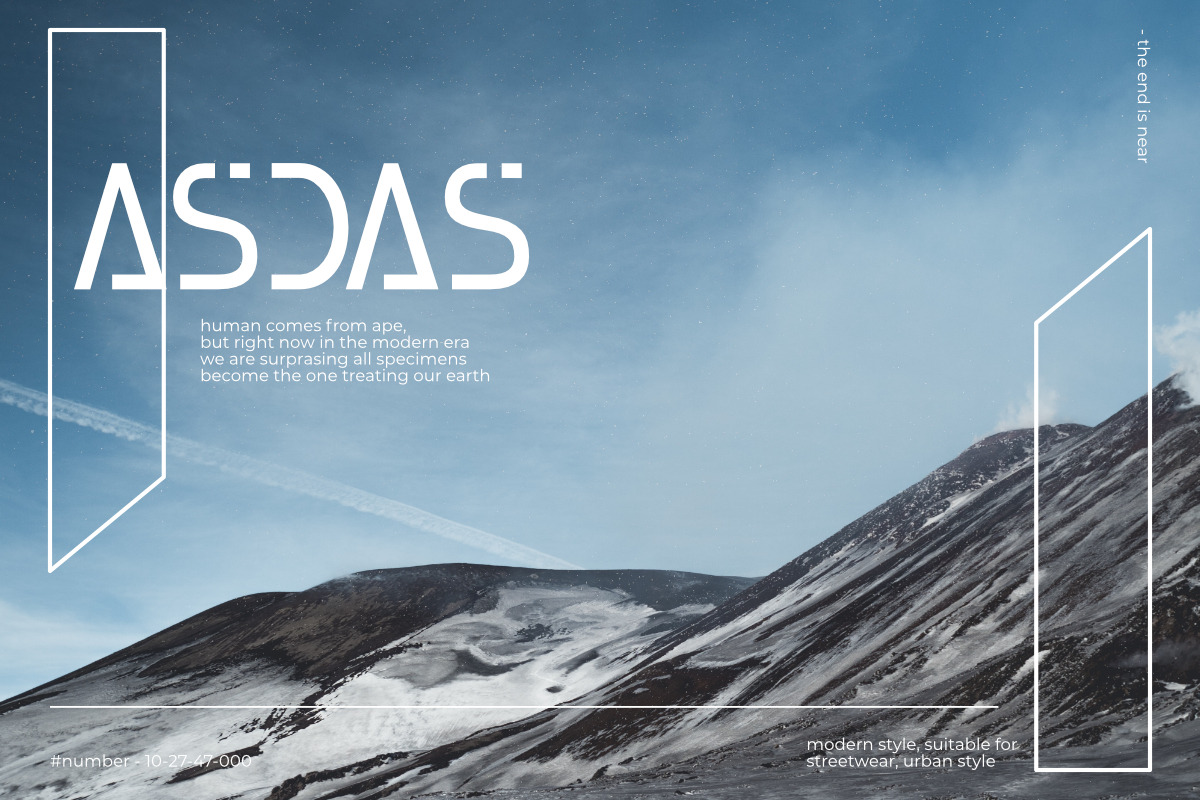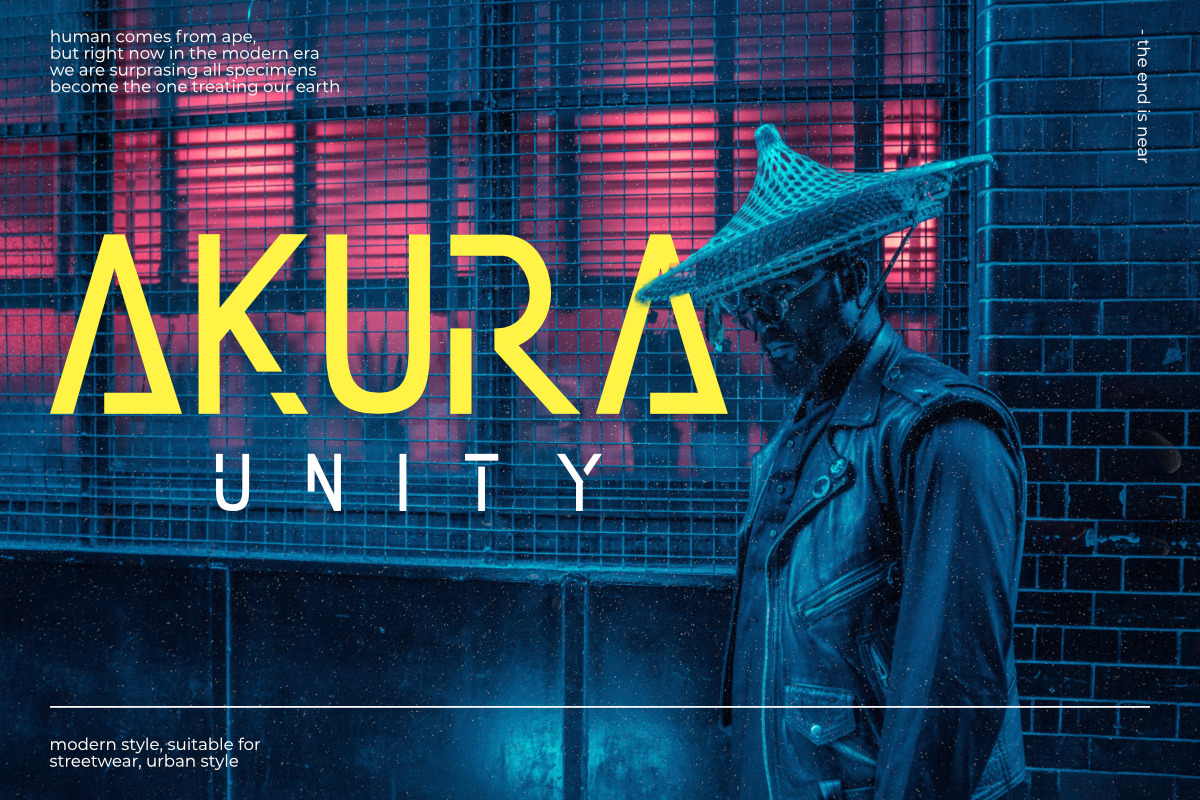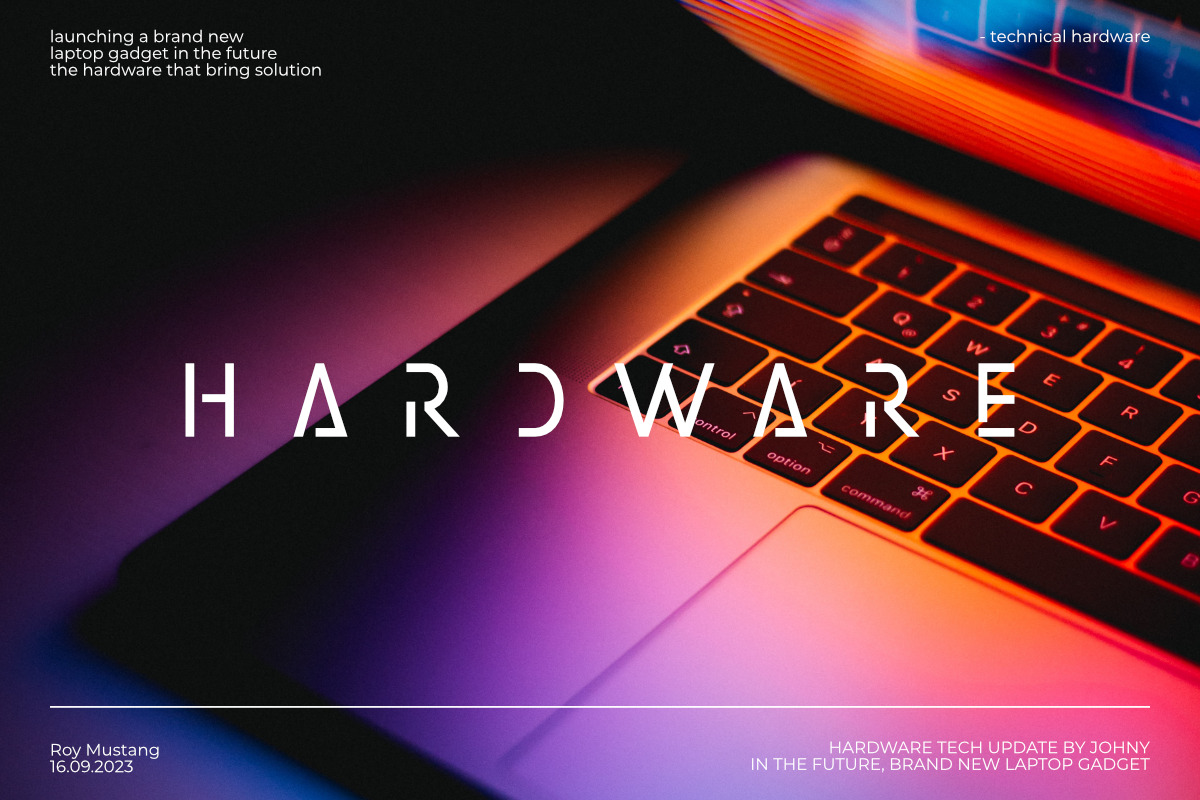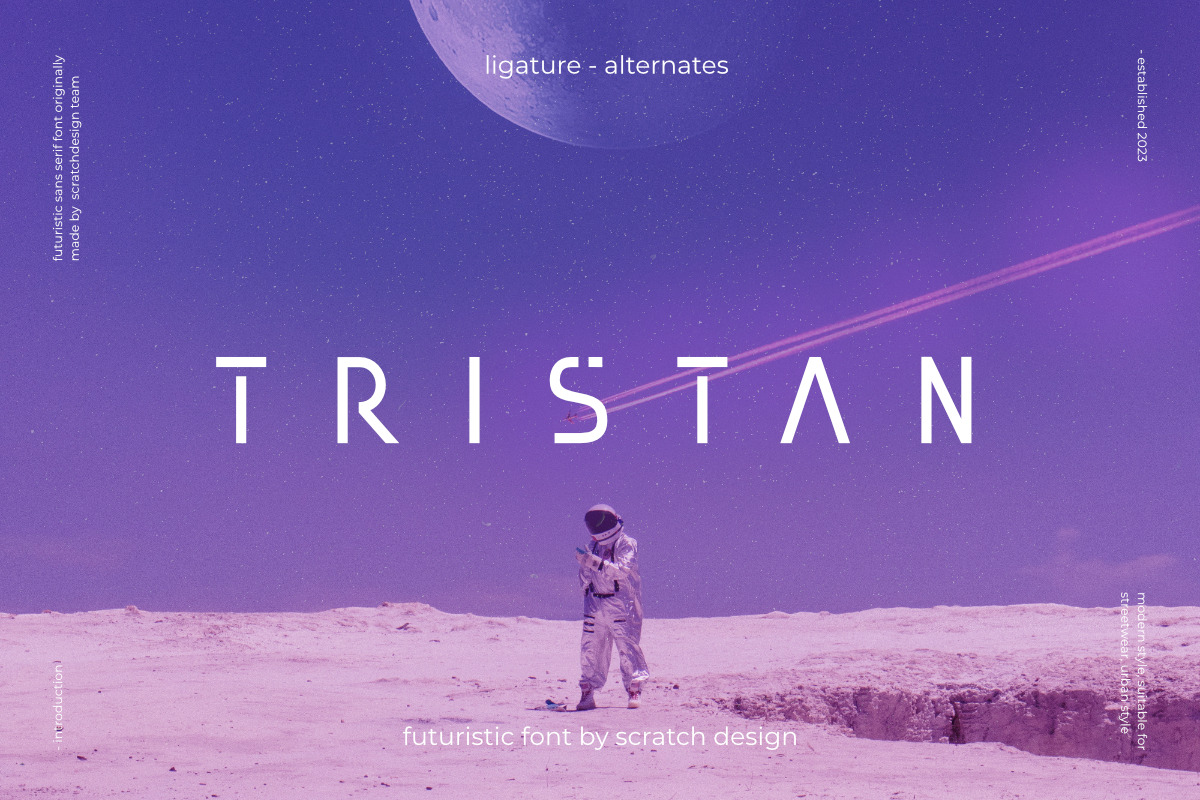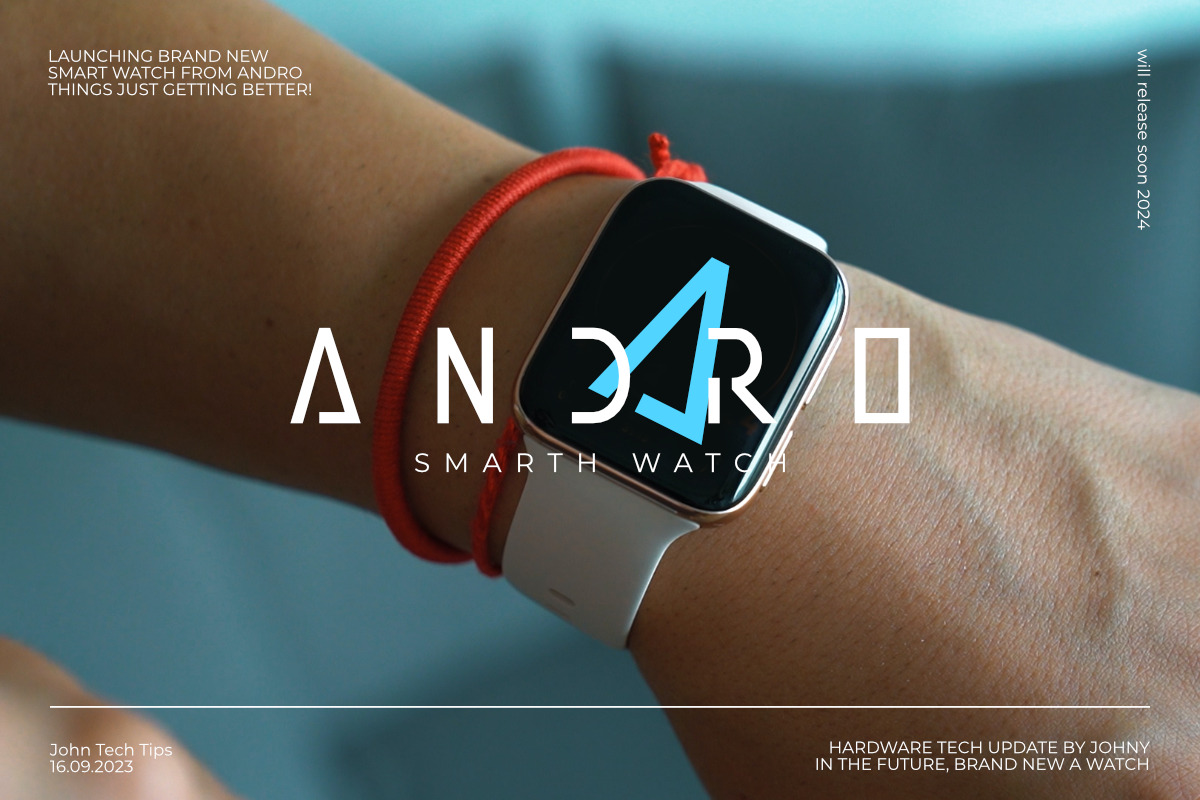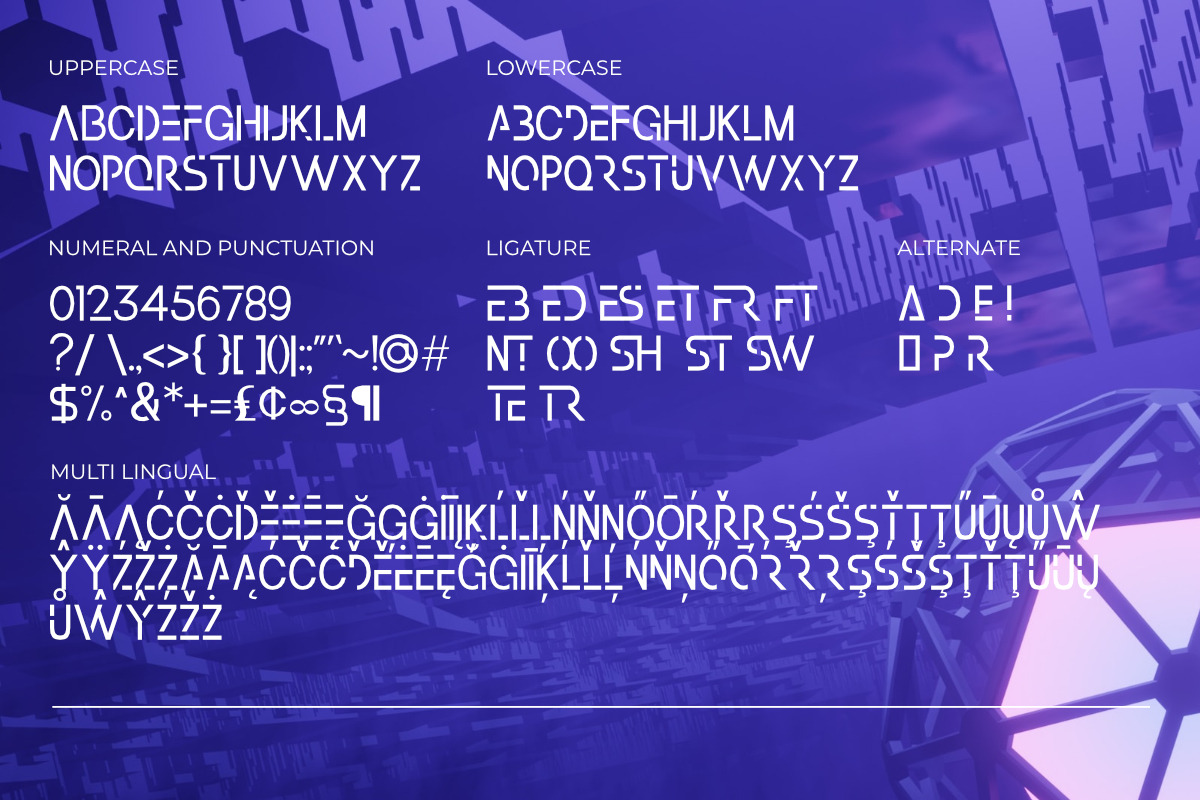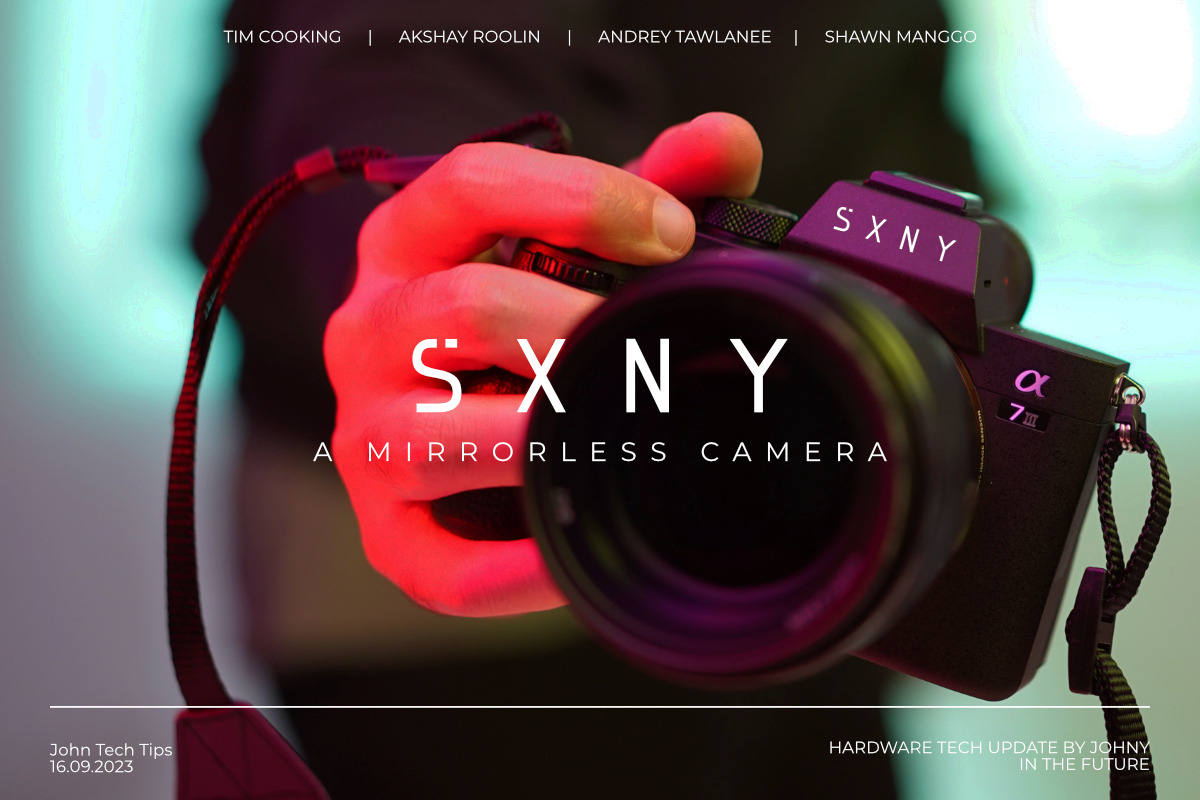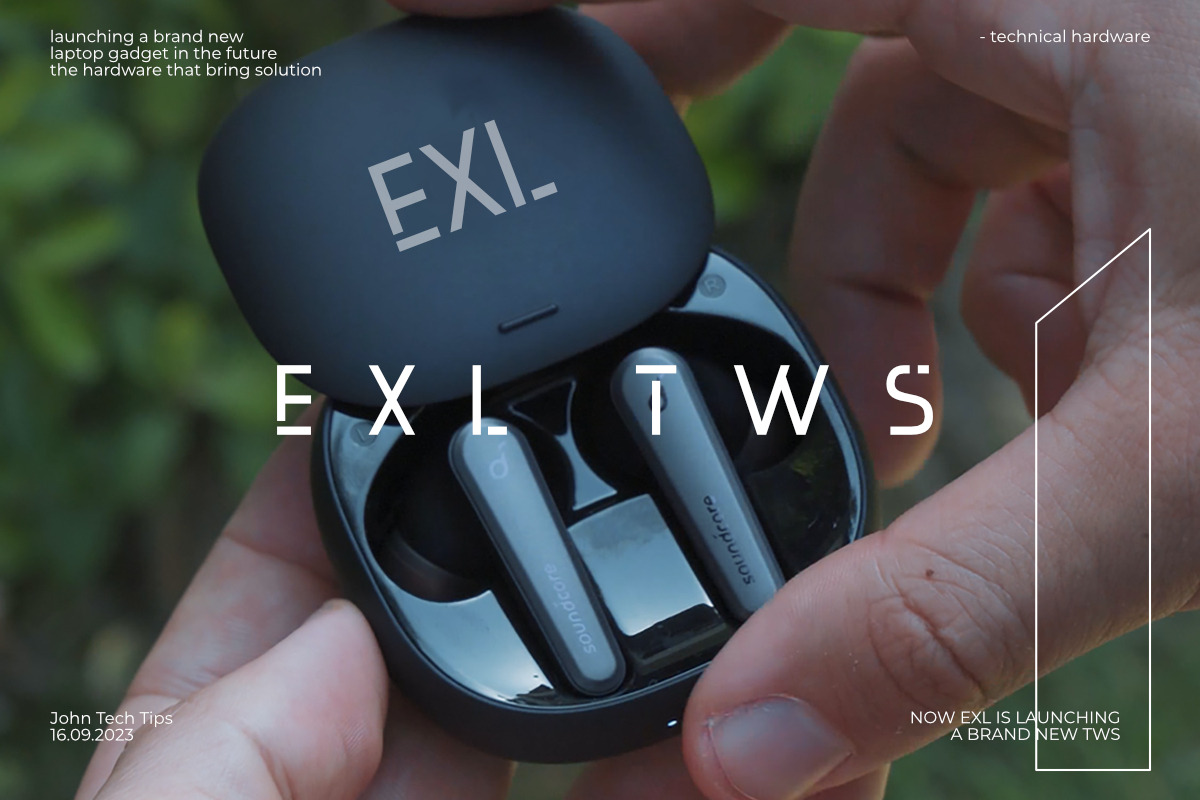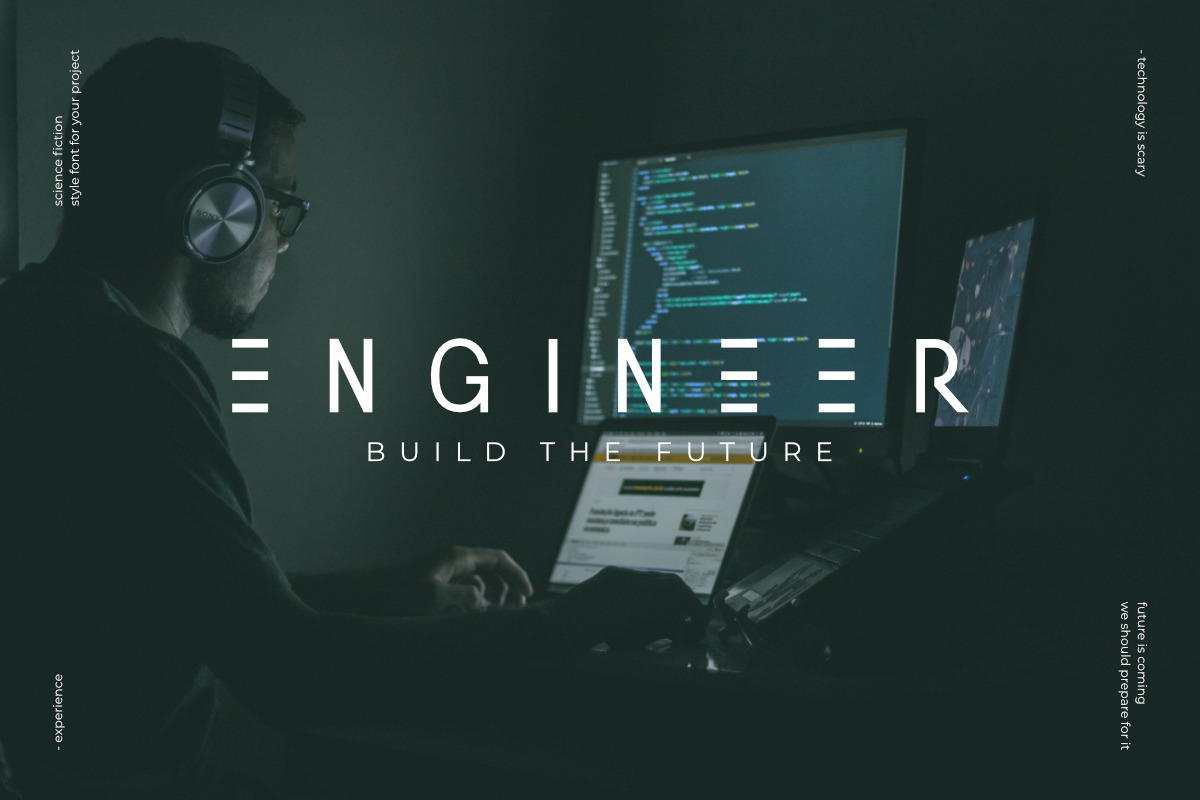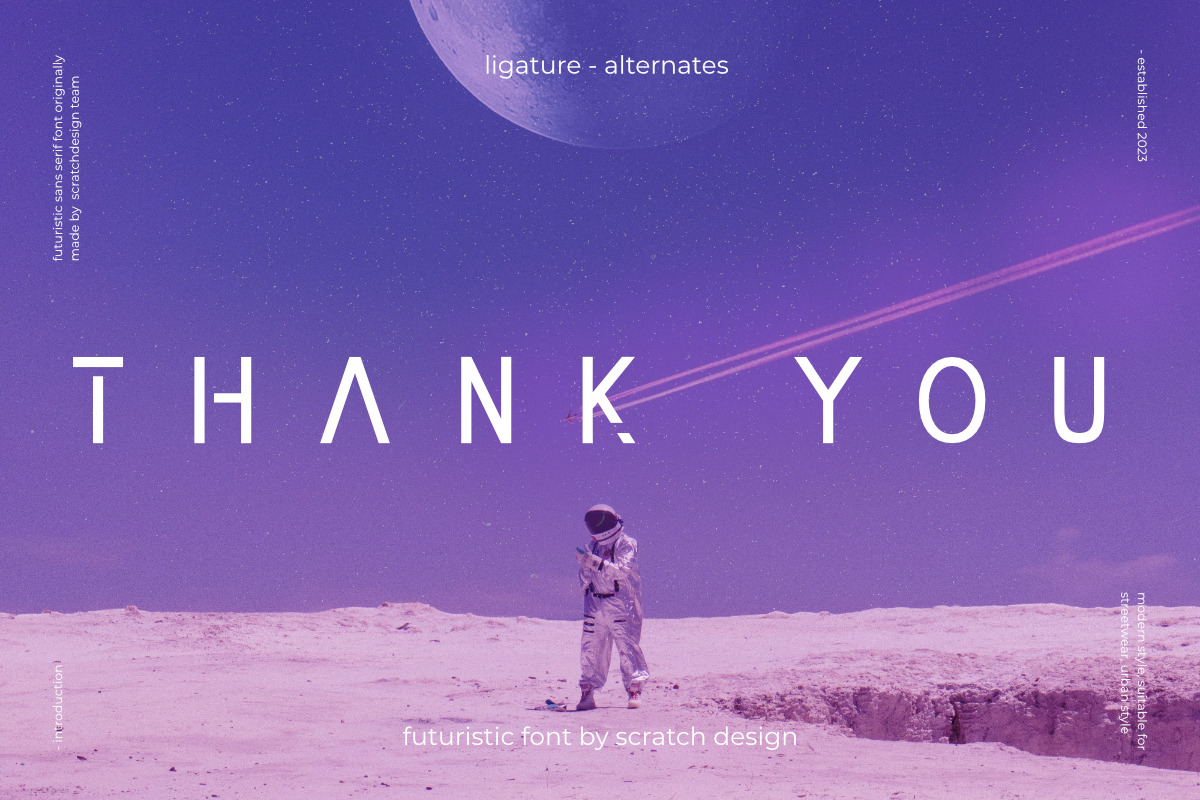
Tristan | Futuristic Font
Introducing, Tristan, a futuristic font by Scratch Design
Tristan is a sans-based font with futuristic hi-tech lowercase & uppercase that will make your design look futuristic and modern. This font will be suitable for science-fiction movie posters, advertising, or projects that match with hi-tech, robots, space, future, planet or race. You can mix and match the uppercase and lowercase to make your design more stunning and stand out. This font is also included with ligatures, alternates and multi-language.